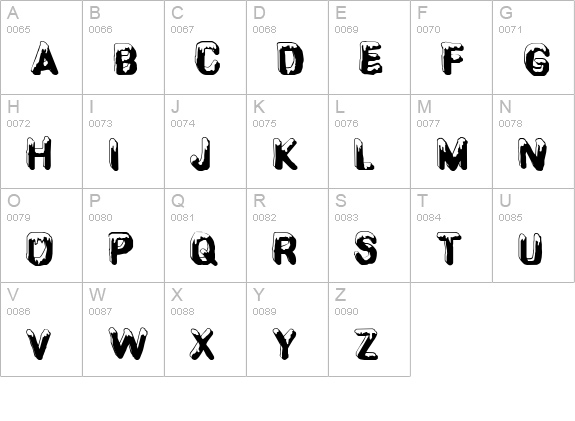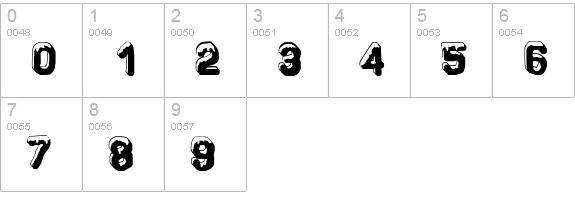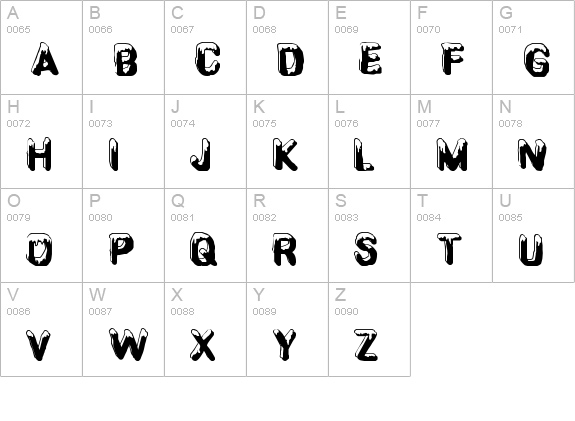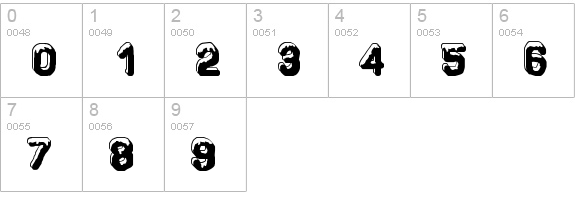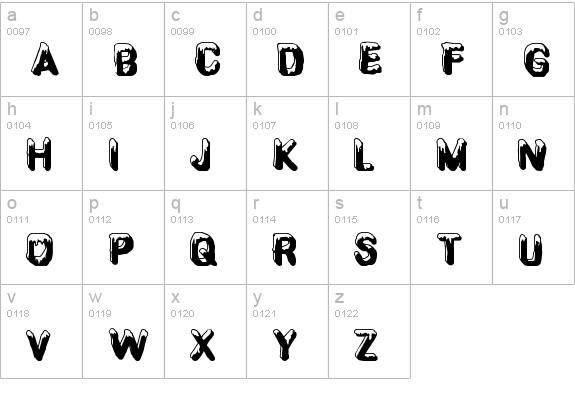
CF SnowBall Regular Font Details
CF SnowBall Regular is the standard, neutral variant in the CF typeface family \xE2\x80\x94 well suited to general body text, paragraphs, and standard typographic work.
CF SnowBall Regular is a visually captivating and versatile font that effortlessly combines elegance with a touch of playfulness. Its smooth and rounded letterforms exude a sense of warmth and familiarity, making it the perfect choice for a wide range of creative projects. This font's unique design is reminiscent of snowballs, evoking feelings of joy, excitement, and the beauty of the winter season. Each letter is meticulously crafted, with careful attention to detail, resulting in a cohesive and harmonious typeface that is a true delight to behold. CF SnowBall Regular is not only visually appealing but also highly legible, ensuring that your message is conveyed effortlessly to your audience. Whether you are designing a logo, crafting invitations, or creating captivating headlines, this font will effortlessly elevate your design and captivate the attention of viewers. What makes CF SnowBall Regular even more extraordinary is that it is freely available to download at FontsMarket.com. This means that you have the opportunity to bring this stunning font into your creative endeavors without any cost. Now, you can add a touch of elegance and playfulness to your designs without breaking the bank. So, why wait? Embrace the beauty of CF SnowBall Regular and take your designs to new heights. Download this font today from FontsMarket.com and unlock a world of endless possibilities for your creative projects.